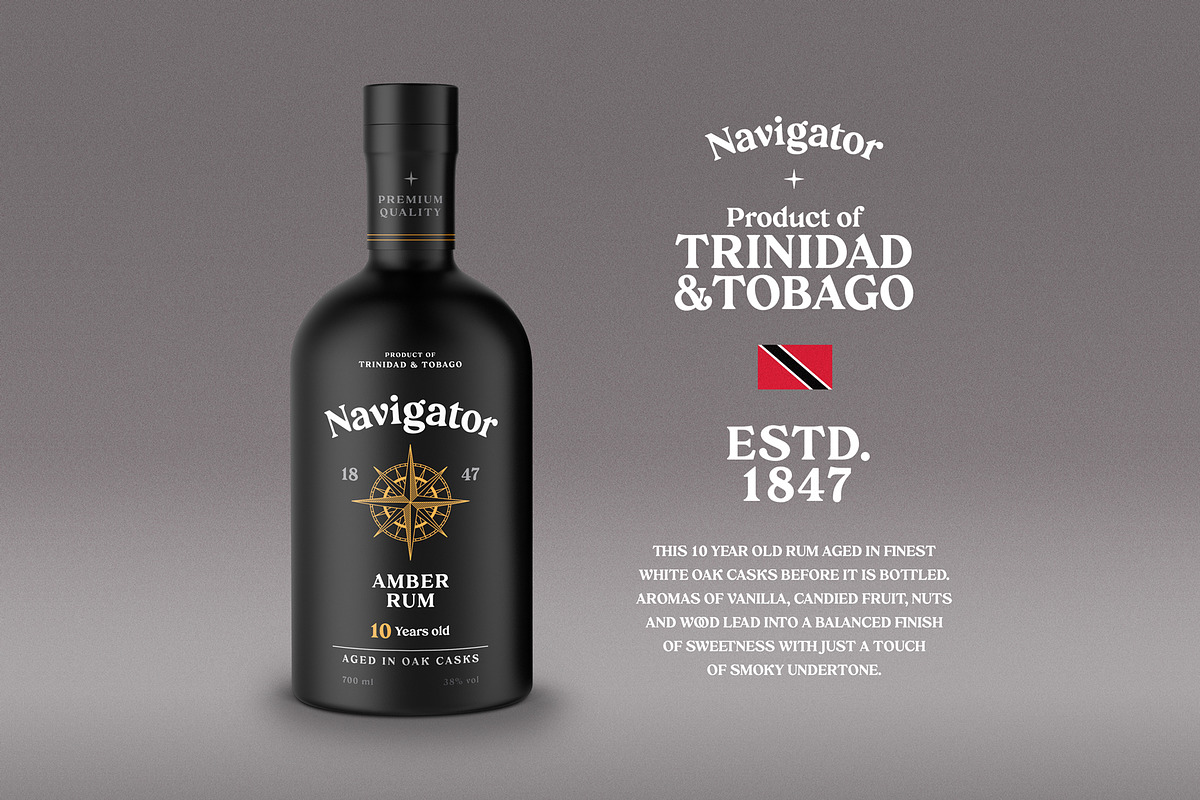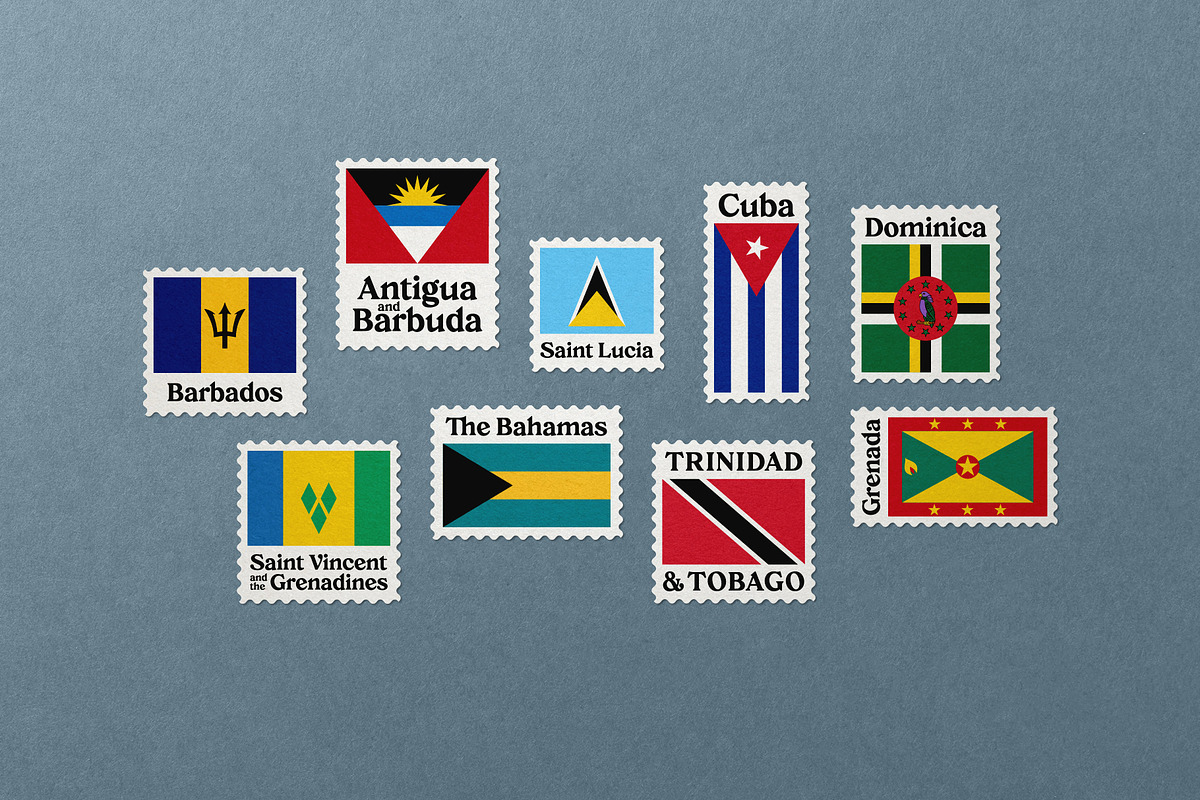
Creolia is a bold rounded serif typeface in a modern and classy style. OpenType features include old-style figures and ligatures. It is ideal for headlines, headers, logos, labels, packaging, postcards, presentations, magazines, invitations, etc.
- Basic latin alphabet A-Z
- 56 Ligatures & Alternates
- 112 Accented characters
- Numbers, Punctuation, Currency, Symbols, Math symbols & Diacritics
- Old style figures